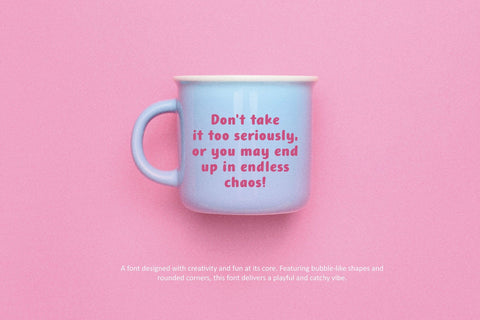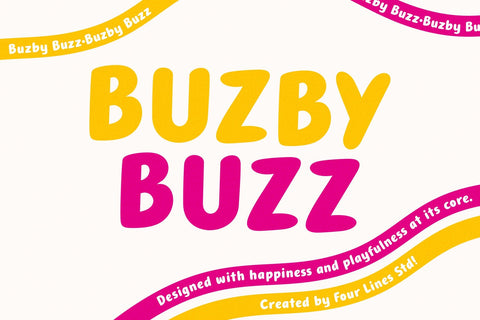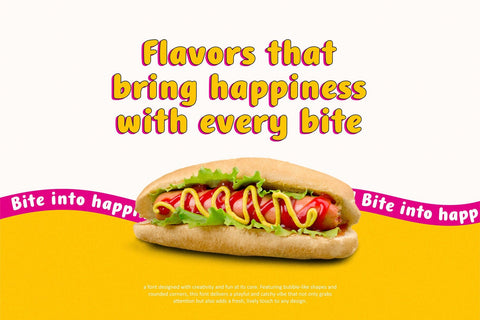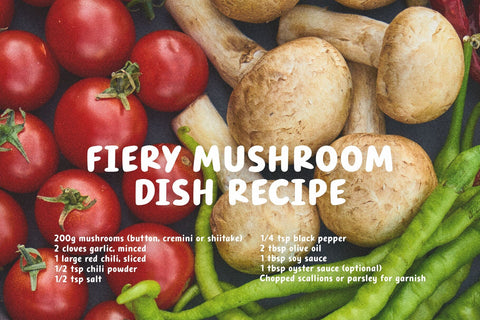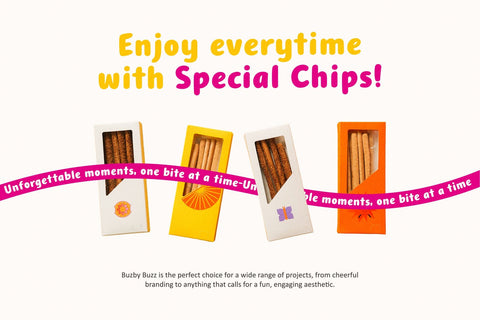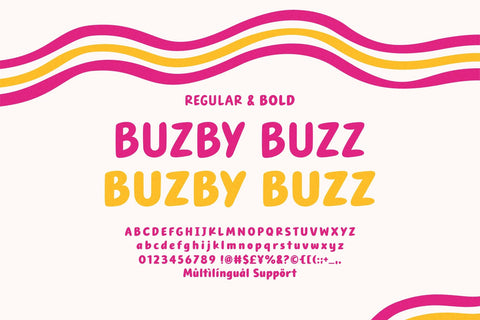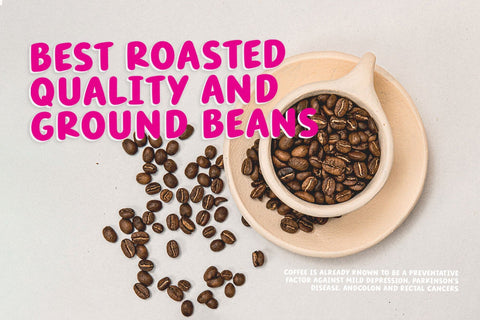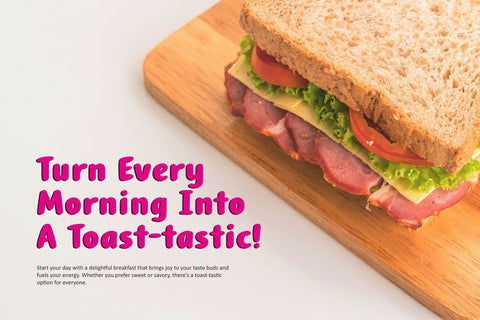
Buzby Buzz – Playful Display Typeface
Introducing Buzzby Buzz – a charming and playful display font that brings a touch of fun to any design project.
Whether you’re designing for children’s products, social media graphics, or anything in between, Buzby Buzz adds personality and flair to your designs with its unique, soft, and rounded edges that resemble gentle bubbles. Ideal for anyone looking to infuse a sense of joy and warmth into their visual content.